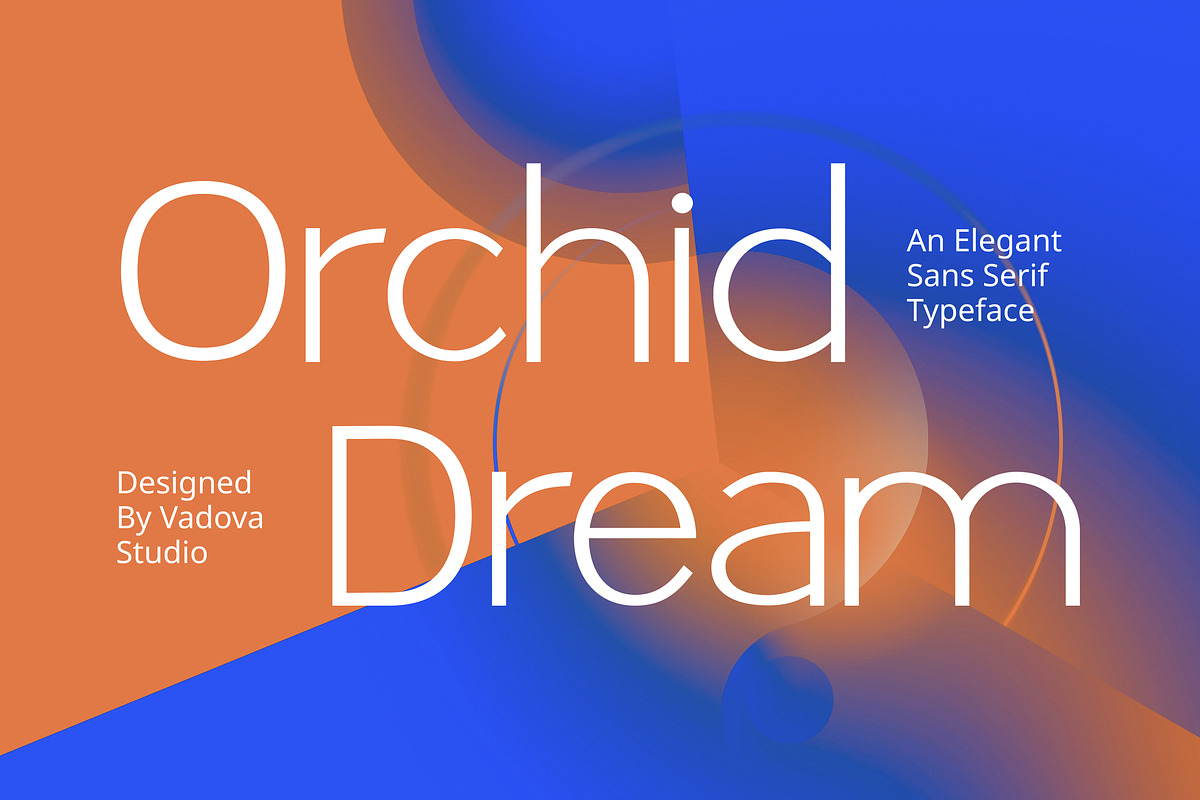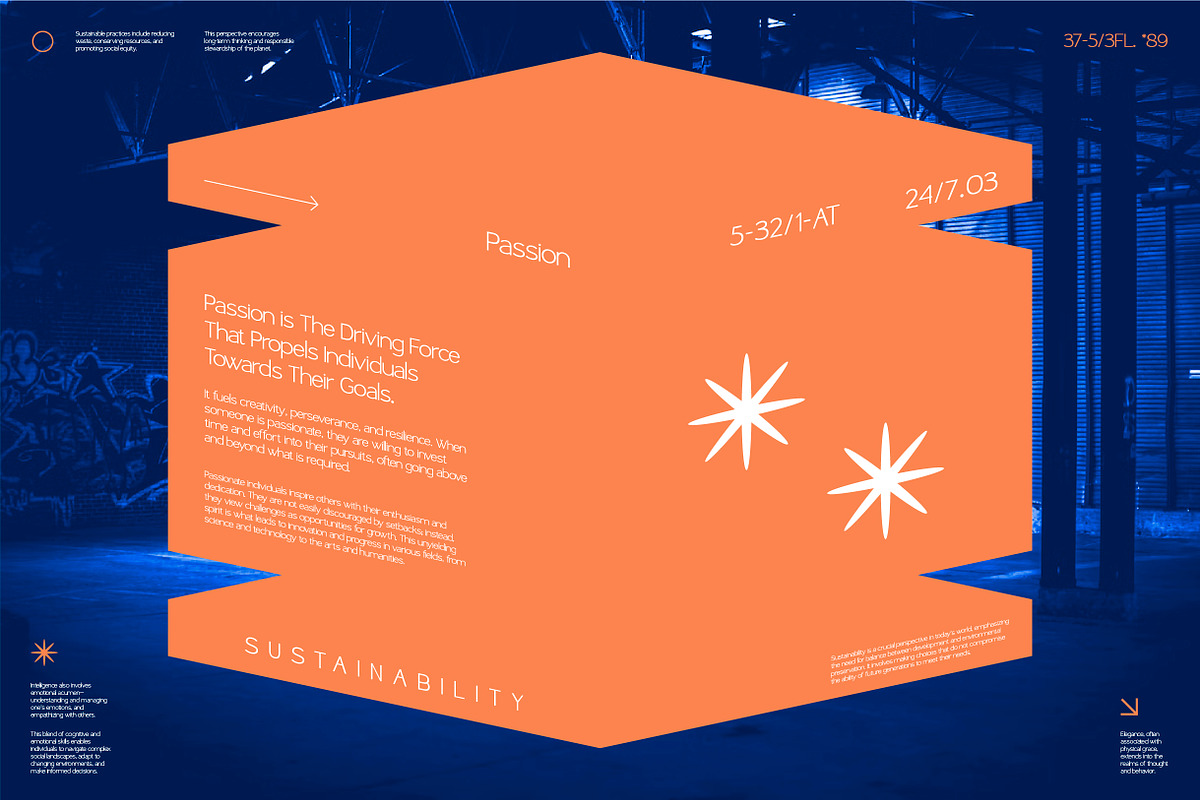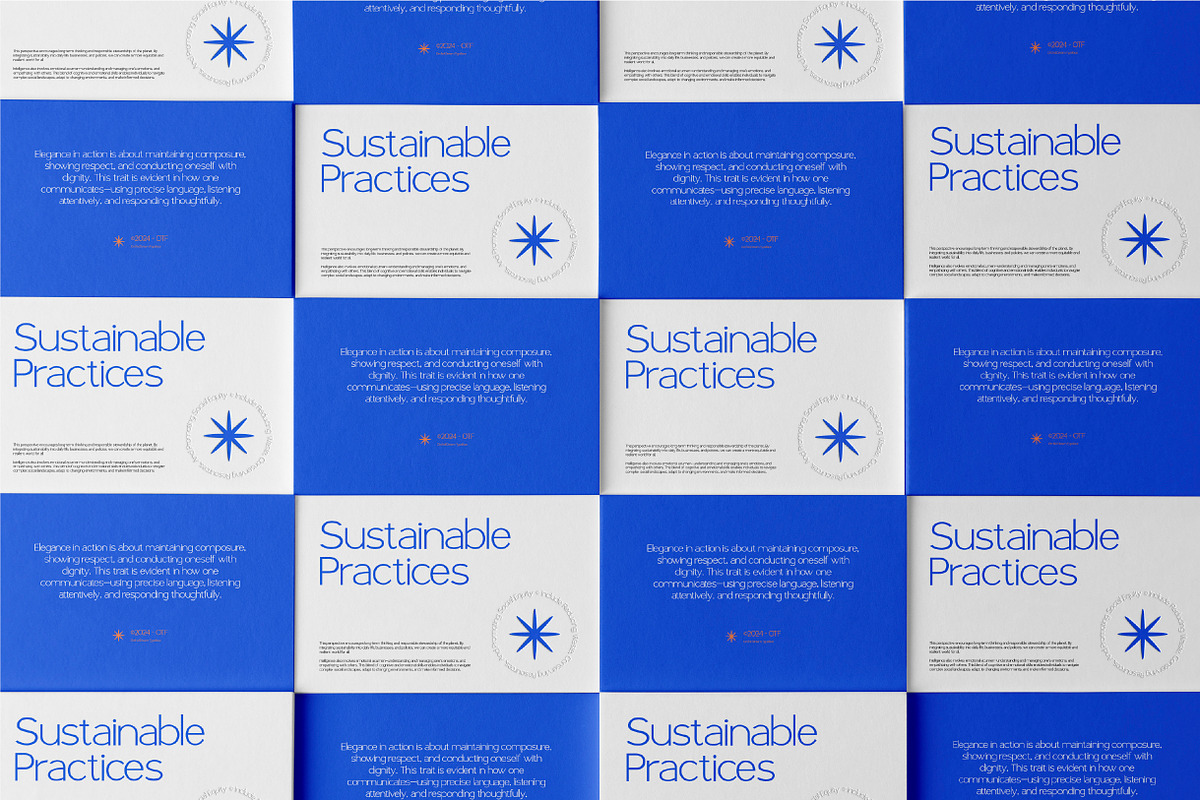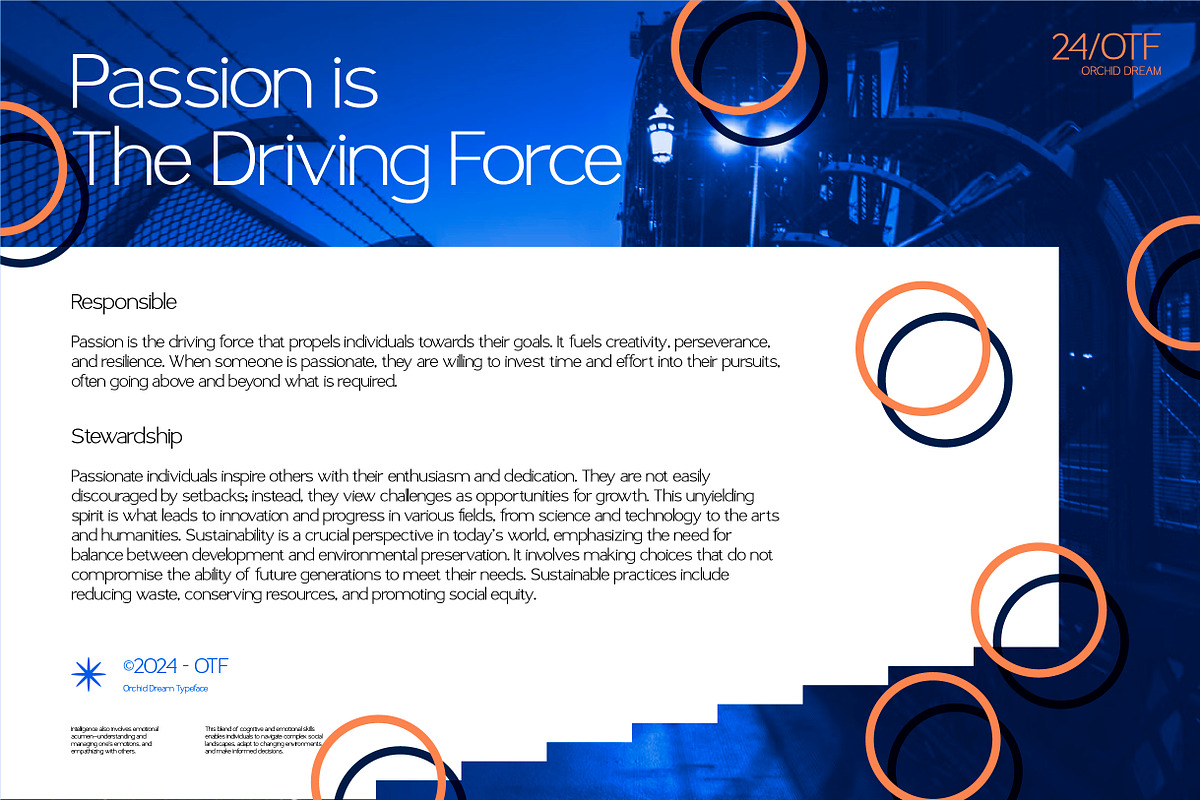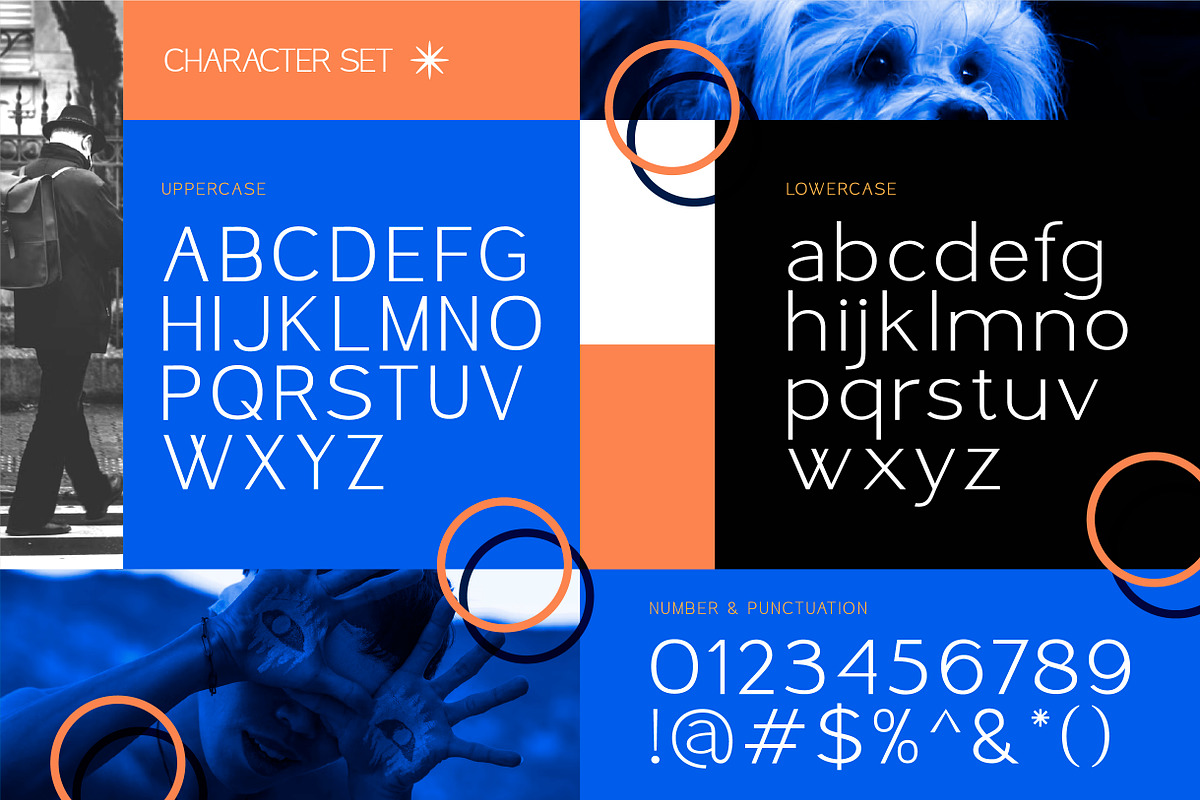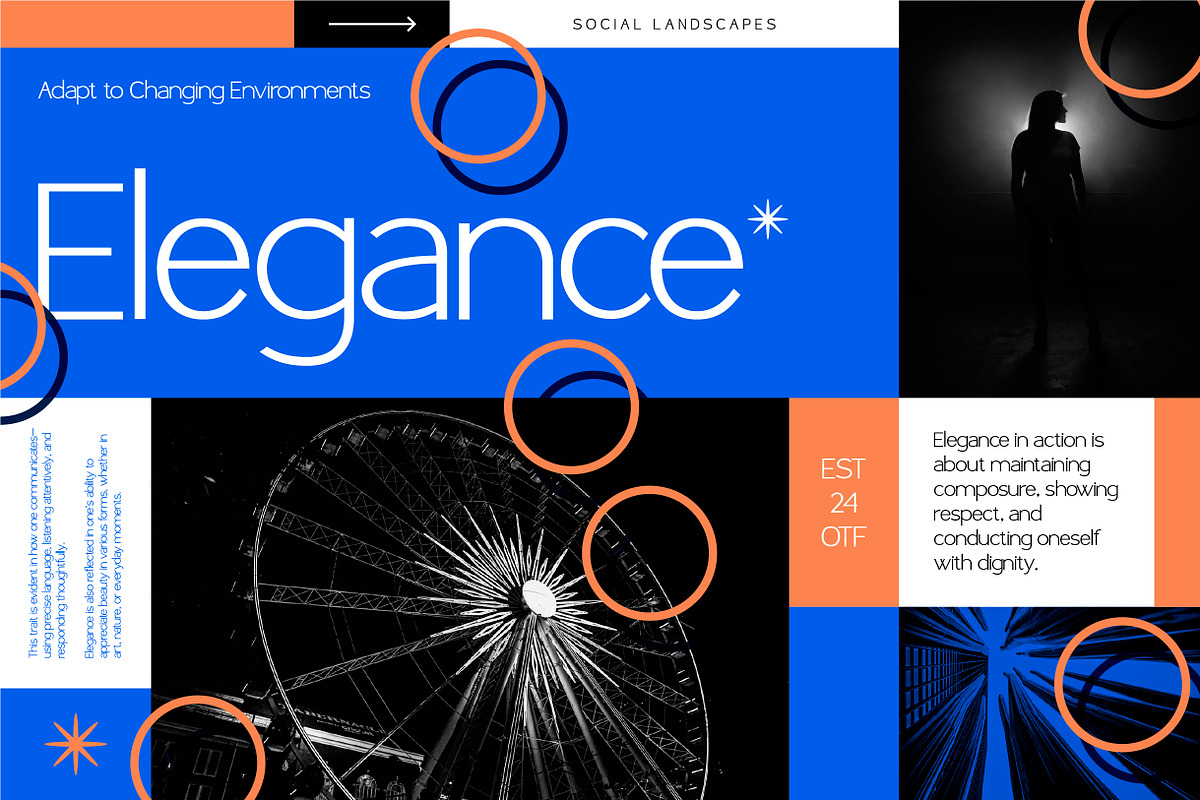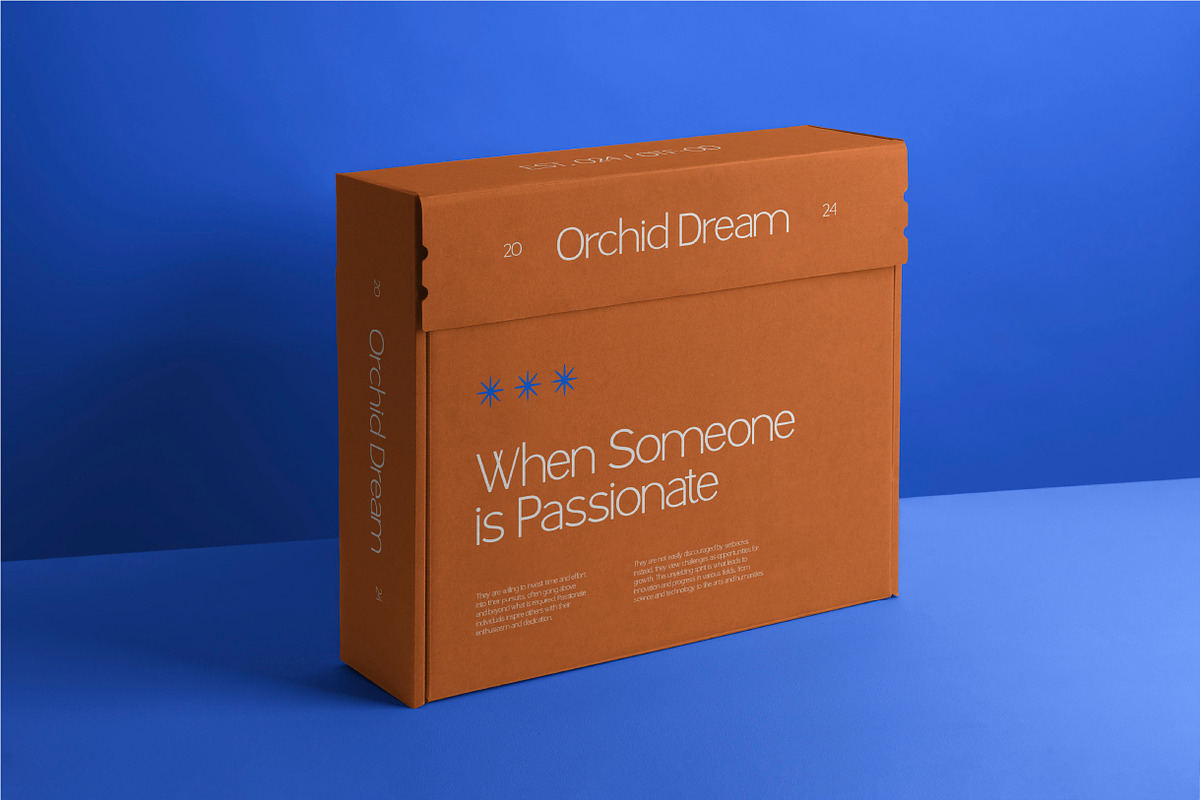
Orchid Dream – Elegant Sans Serif
Orchid Dream is an elegant sans serif typeface that blends modern minimalism with timeless sophistication. With its clean lines, balanced proportions, and sleek design, Orchid Dream is perfect for branding, editorial layouts, social media, and professional presentations.
This typeface offers versatility and elegance for both digital and print projects, making it an essential font for creatives who value clarity, style, and professionalism.
Highlights
Modern and elegant sans serif style
Clean and minimal letterforms for versatile use
Perfect for contemporary branding and editorial design
Strong readability in both digital and print
Best Uses
Branding & Logos – sleek identity for modern brands
Editorial & Magazines – clean typography for stylish layouts
Web & App Design – minimal typography for digital projects
Corporate & Presentations – professional and clear communication
Social Media Content – modern and eye-catching visuals
Luxury Packaging – upscale and sophisticated product labels
Ligatures – for smooth letter combinations
Alternates – stylistic options for variation
Multilingual Support – covers multiple languages
Complete Character Set – uppercase, lowercase, numbers, punctuation
Refined yet simple, Orchid Dream brings clarity, elegance, and versatility to every design project.